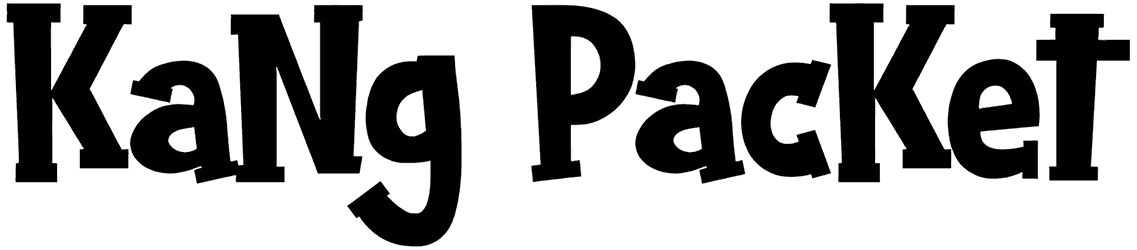
Tiktok Font
If you want to convey a sense of youth, freshness, clutter, and vivacity to the audience and get their attention, a comic font like Tiktok can meet your expectations. This font can greatly increase the efficiency of banners, menus, book covers, and social media posts. It should not be overlooked that this font does not support lowercase letters, numbers, and punctuation.
Designed by: Mocha Frappuccino